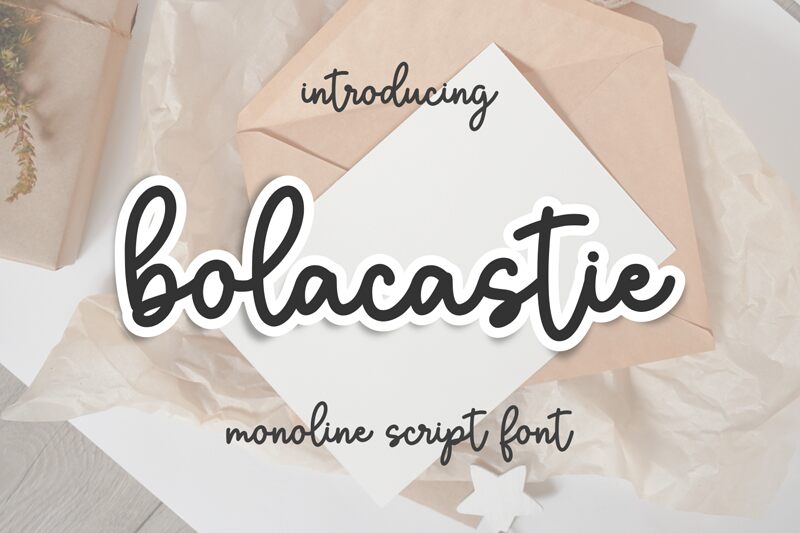
Bolacastie, designed by Makashi, brings the charm of handwritten script to the digital realm. With its fluid and expressive strokes, this font mimics the nuanced pressure of a calligrapher's hand, offering a personal touch that resonates with authenticity.
Each letter in Bolacastie dances with an elegance that makes it perfect for invitations, branding, and editorial design where a touch of finesse is desired. The gentle sway of its characters invites readers into a narrative as intimate as a handwritten letter.
Bolacastie stands out in applications where personality and warmth are paramount, effortlessly elevating the visual storytelling of any project it graces.